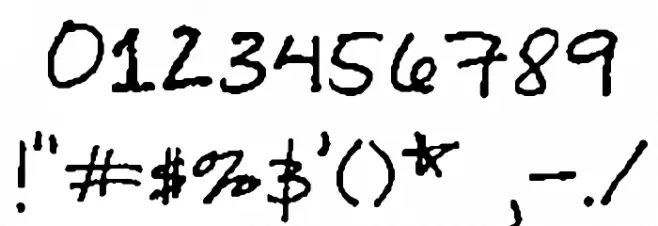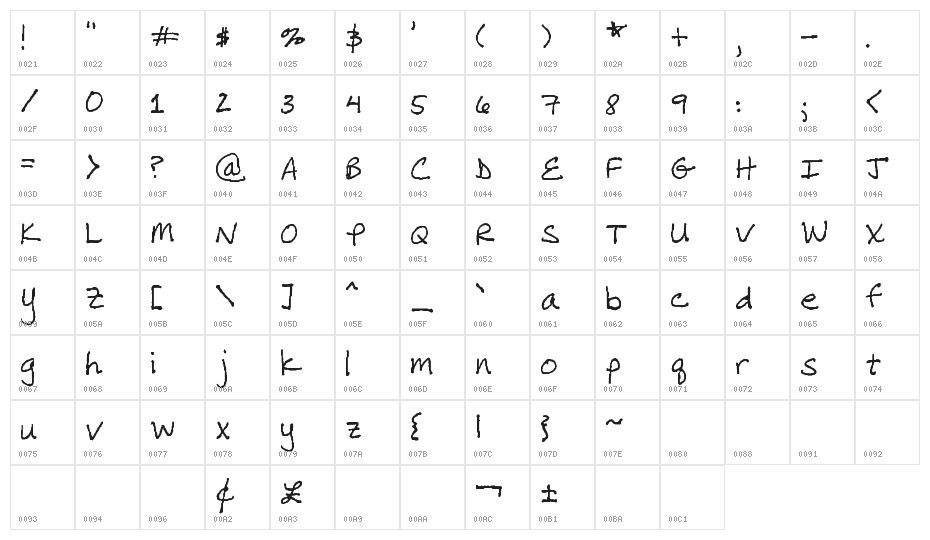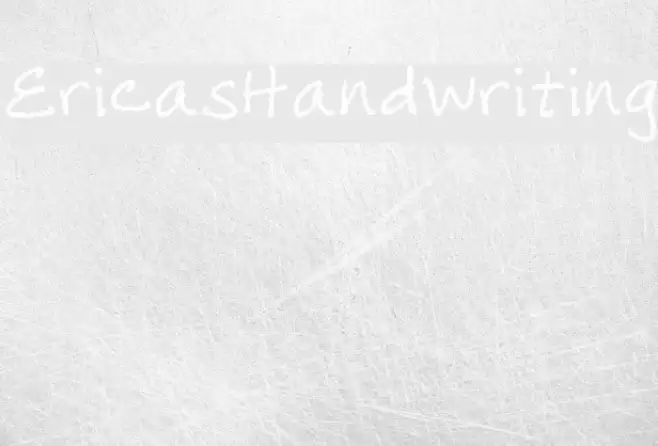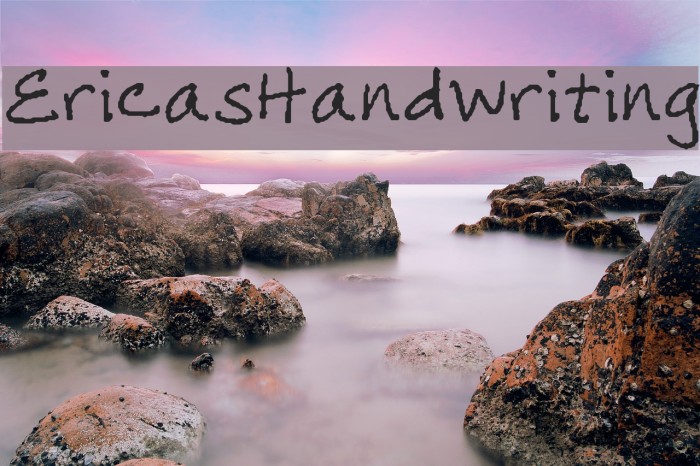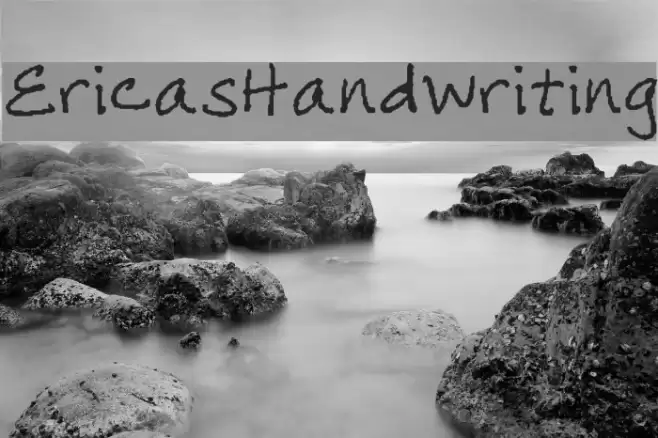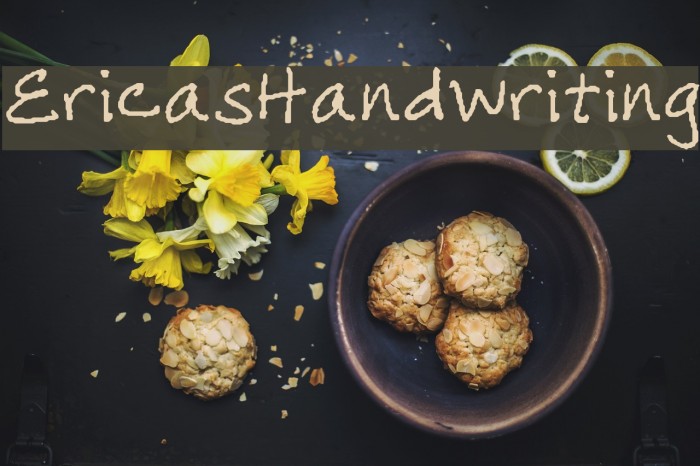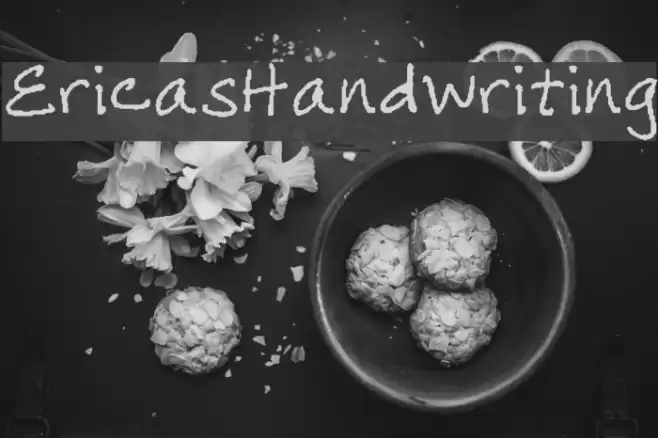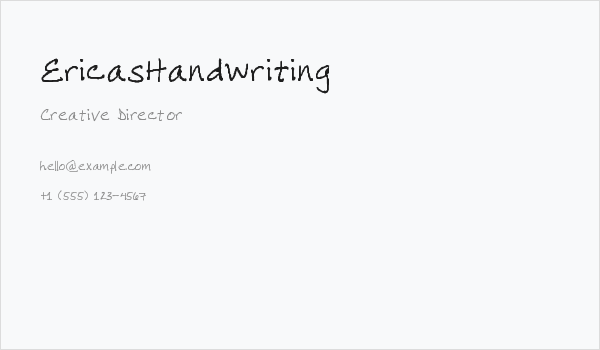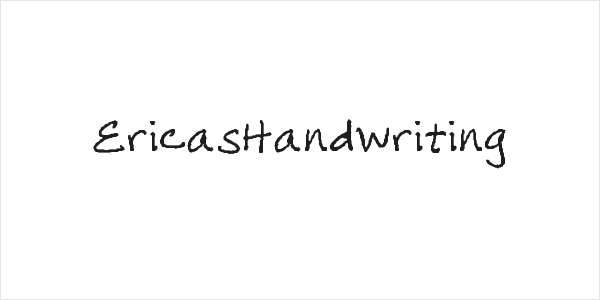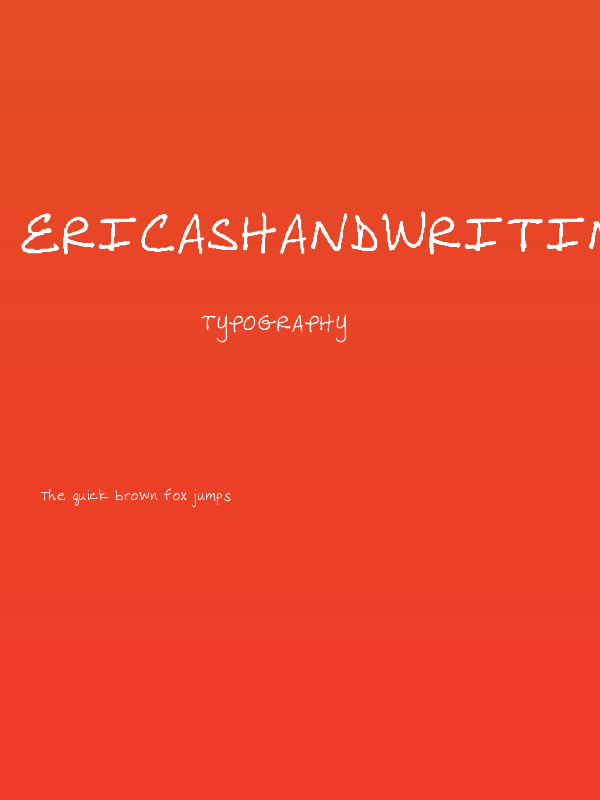
EricasHandwriting Font
EricasHandwriting Description
This font captures the essence of casual handwriting with its organic and flowing strokes. Each character is uniquely crafted, giving a personal touch that mimics the natural variations found in handwritten text. The letters are slightly irregular, adding to the authenticity and charm of the style. The overall appearance is approachable and friendly, making it ideal for projects that require a human touch. The font maintains good legibility despite its informal style, with clear distinctions between characters. The numbers and special characters follow the same handwritten aesthetic, ensuring consistency throughout.
| Use Case | Logos, Invitations, Personal notes |
| Proposed Projects | Ideal for personal notes, invitations, greeting cards, and any project that benefits from a personal, human touch. |